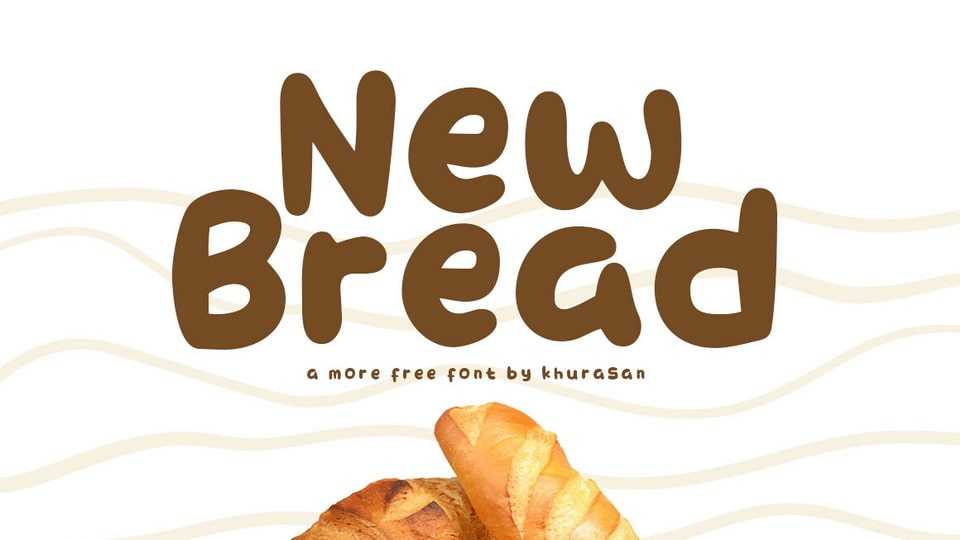
Download New Bread font, a sweet and smooth hand drawn font that envelops your designs in a warm embrace of genuine affection. New Bread font features a tender and inviting design, with each letter exuding a sense of gentle flow.